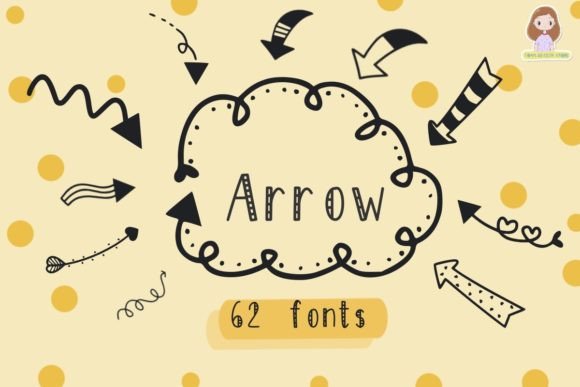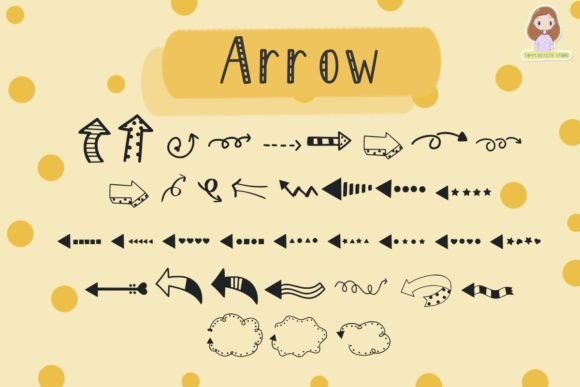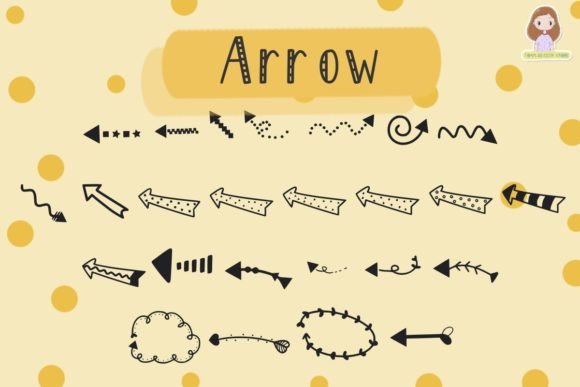
Arrow Font
About Arrow Font
Introducing the Arrow font, a collection of unique hand-drawn dingbats that will add a touch of creativity and charm to your designs. These arrow symbols are versatile and can be used for a variety of purposes, whether you want to decorate your designs, embellish your plans, or simply add a stylish element to your creative ideas.
With the Arrow font, you have access to a wide range of hand-drawn arrow symbols, each with its own distinctive style and character. These arrows come in various shapes, sizes, and directions, allowing you to choose the perfect arrow to complement your design. Whether you’re working on posters, logos, invitations, or any other project, these arrows will make your designs stand out and grab attention.
One of the great advantages of the Arrow font is its flexibility. You can easily resize, rotate, and manipulate the arrow symbols to fit your specific design needs. Use them individually or combine multiple arrows to create unique patterns, borders, or decorative elements. The possibilities are endless, and your creativity is the only limit.
Adding the Arrow font to your creative arsenal opens up a world of possibilities. Whether you’re a graphic designer, illustrator, or hobbyist, these hand-drawn dingbats will spark your imagination and give your designs an artistic touch. The organic, hand-drawn nature of the arrows adds a sense of authenticity and uniqueness to your projects.